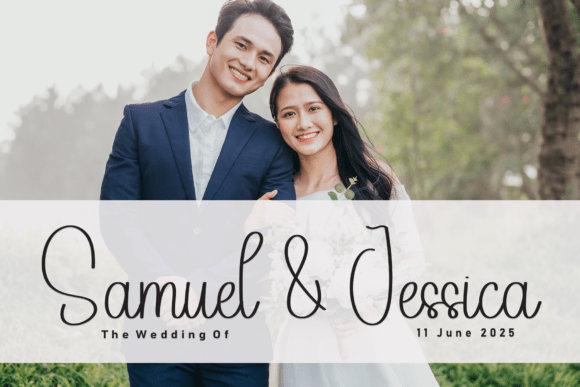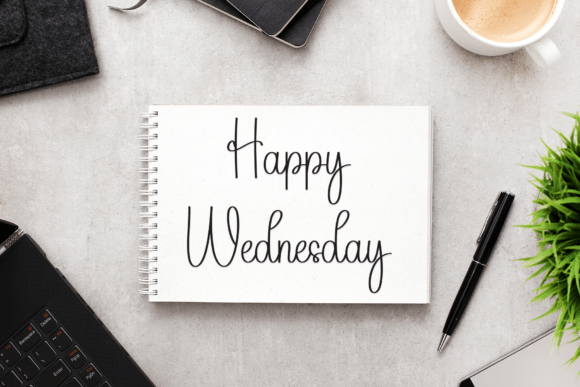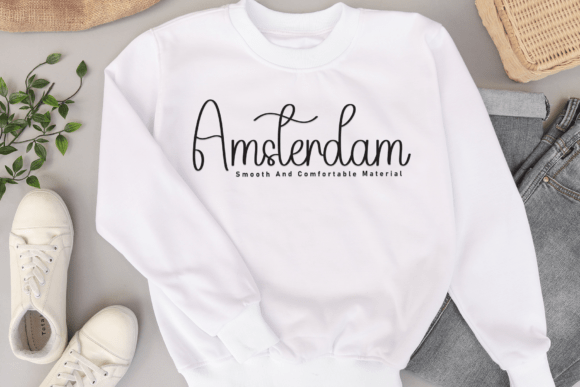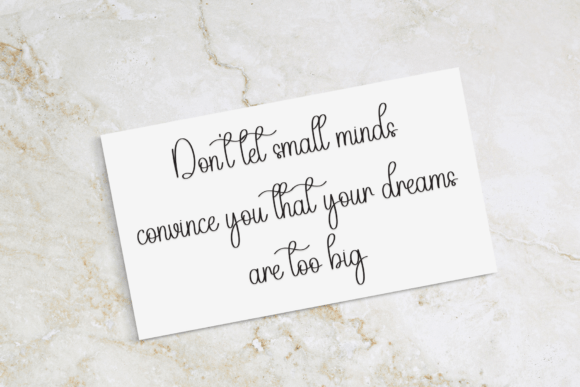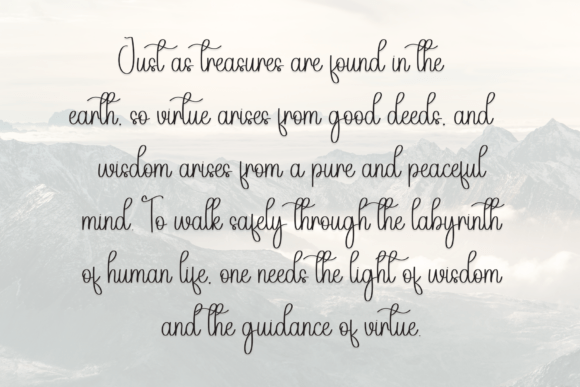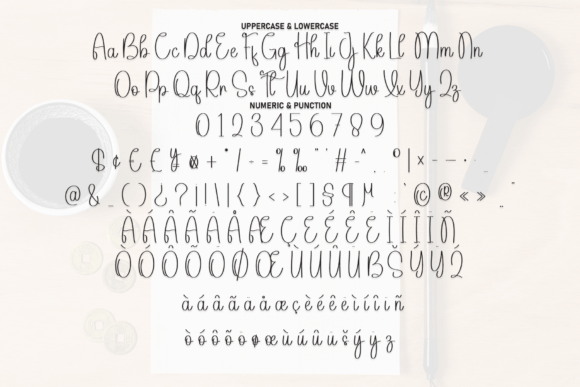
The Elegance of Calligraphy Font: A Designer’s Delight
I still remember the time I was working on a wedding invitation project, and my client asked for a font that exuded elegance and sophistication. I scoured the internet, tried out countless fonts, but nothing seemed to fit the bill. That was until I stumbled upon the Calligraphy Font. With its fluid curves, graceful strokes, and polished details, it instantly captured the essence of what I was looking for. In this article, I’ll share my experience with this beautiful font, its features, and how to make the most of it in your designs.
A Closer Look at Calligraphy Font
Calligraphy Font is a stylish script font that brings a touch of contemporary charm to any design. Its carefully crafted letterforms and natural flow make it perfect for a variety of applications, from logos and invitations to packaging and social media graphics.
What I Love About Calligraphy Font
- ✨ Elegant and sophisticated design that adds a refined touch to any project
- ✅ Fluid curves and graceful strokes that give it a natural, hand-drawn feel
- ✅ Polished details that make it perfect for high-end designs
- ✅ Versatile and adaptable to different design styles and applications
While Calligraphy Font is an excellent choice for many designs, there are a few things to keep in mind:
- ⚠️ Some of the more intricate letterforms can be a bit tricky to read at smaller font sizes
- 🤔 The font’s stylistic alternates and glyphs require a bit of experimentation to get the hang of
The Story Behind Calligraphy Font
Calligraphy Font was designed by a team of typographers who wanted to create a font that captured the essence of traditional calligraphy with a modern twist. Inspired by the works of famous calligraphers, they carefully crafted each letterform to convey a sense of elegance and sophistication.
| Font Name | Calligraphy Font |
| What is Calligraphy Font? | Calligraphy Font is a stylish script font that exudes elegance and contemporary charm. |
| What design applications is Calligraphy Font suitable for? | Calligraphy Font is perfect for logos, invitations, packaging, social media graphics, and more. |
| Is Calligraphy Font easy to read? | Yes, Calligraphy Font is designed to be highly legible, even at smaller font sizes. |